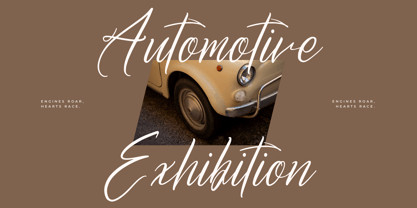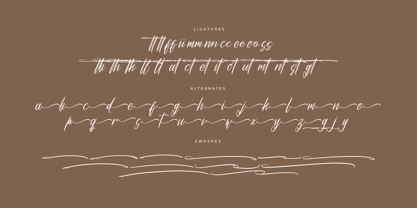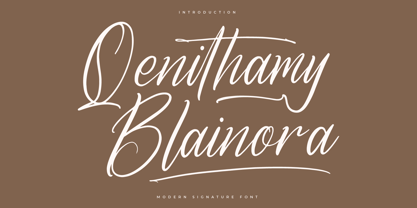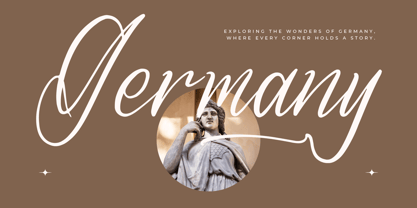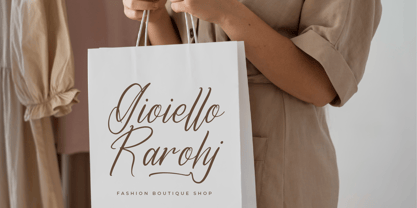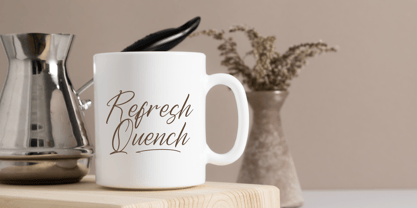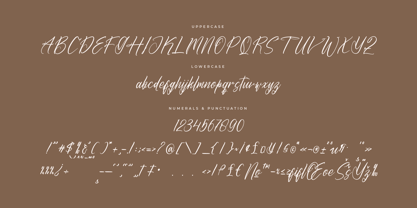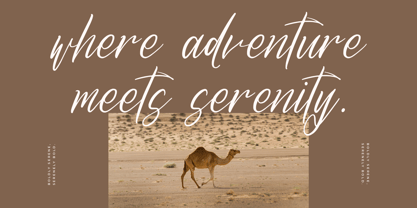
Qenithamy Blainora
by Letterena Studios
The Qenithamy Blainora Font Family was designed by Heru Utama Putra and published by Letterena Studios. Qenithamy Blainora contains 2 styles and family package options. More about this family
Qenithamy Blainora is a dazzling script font that exudes elegance and charm. With its fluid strokes and intricate details, it captivates the eye and adds a touch of sophistication to any design project. Perfect for invitations, branding, and headlines, Qenithamy Blainora brings a sense of luxury and style to your creations.